The Offices of Kat Ran Press
Postage Stamps by Type Designers
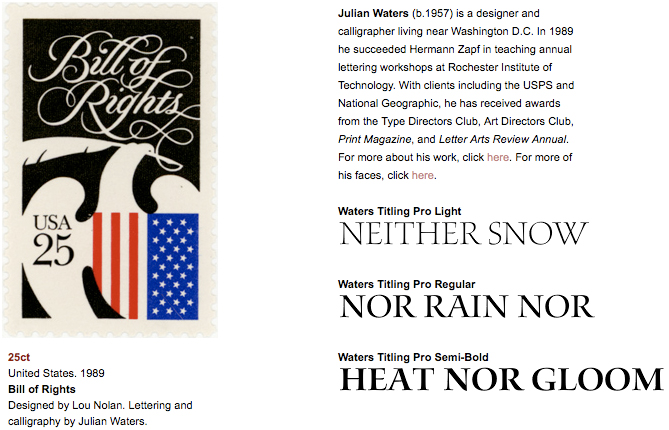
Above: Detail of the Julian Waters entry from his 1989 stamp,
via The Offices of Kat Ran Press.
Above: A kind hello in the mail yesterday via The Offices of Kat Ran Press, who are working on an excellent resource for both students and practitioners, stamp and type designs from the masters. The history of this Office is equally interesting, and a wide array of their work is available online.
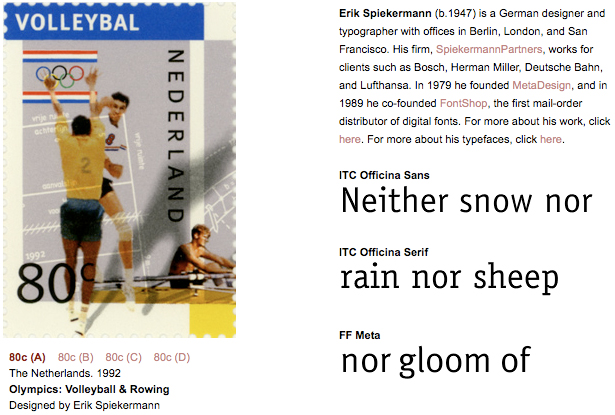
Above: Detail of a wonderful pairing from the work of Erik Spiekerman.